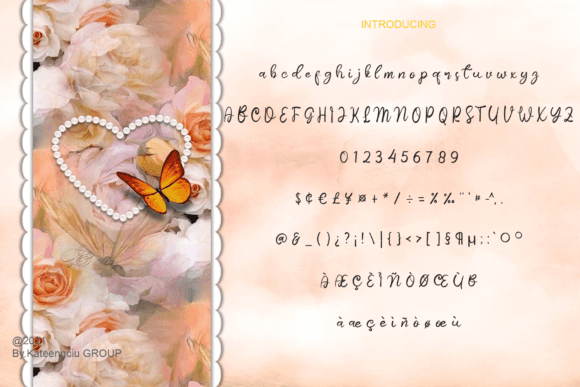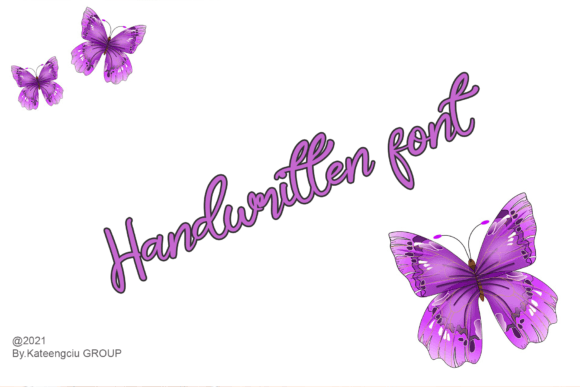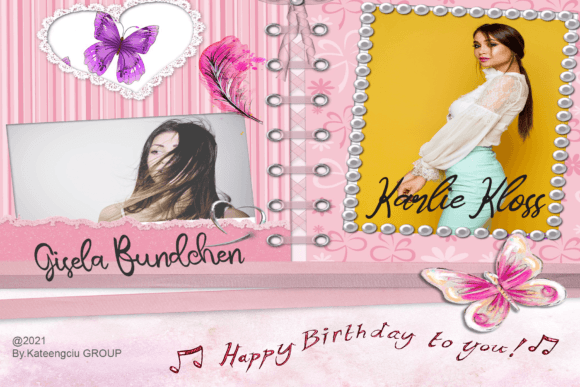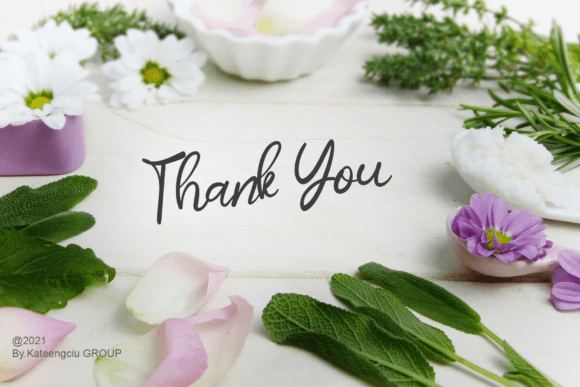
Remember that moment when you’re working on a design project, and you’re stuck trying to find the perfect font to bring it all together? You’ve tried a dozen different options, but nothing seems quite right. That’s where the magic of a well-designed font comes in – and that’s exactly what the Butterflay Font is here to do.
Butterflay is a beautiful, simple, and playful handwritten font that’s perfect for adding a touch of whimsy to your designs. Whether you’re creating a logo, a website, or a social media graphic, this font is sure to elevate your work to the next level. With its versatility and unique style, it’s no wonder why designers are falling in love with the Butterflay Font – and why you should be too!
- Unique Characteristics: Features a unique, hand-drawn design with subtle texture and flair, making it perfect for creative and artistic projects.
Designer Review: Butterflay Font
First off, I’d like to say that I really enjoy the unique aesthetic of the Butterflay Font. ✨ The combination of rounded shapes and subtle flourishes gives it a whimsical feel that’s perfect for branding and design projects that need a touch of elegance. The font’s open and airy feel makes it easy to read, even at smaller sizes.
Here are some specific features that I think make the Butterflay Font stand out:
- ✨ Beautiful, intricate details that add a touch of sophistication
- ✨ Highly customizable with a range of weights and styles
- ✨ Works well in both print and digital formats
However, I do have a few reservations about the font. ⚠️ Here are some limitations I’ve noticed:
- ⚠️ Can be difficult to use in situations where a bold, impact font is needed
- ⚠️ May not be the best choice for projects that require a lot of text
Overall, I think the Butterflay Font is a great addition to any designer’s toolkit. While it may not be perfect for every project, it’s a versatile and visually appealing choice that’s sure to impress. With a little creativity and experimentation, I think designers can get some really great results with this font.
The Butterfly Font is a beautiful, whimsical font perfect for:
- Children’s book illustrations and design.
For best results, use the font in combination with soft colors and delicate graphics to create a dreamy, ethereal atmosphere.